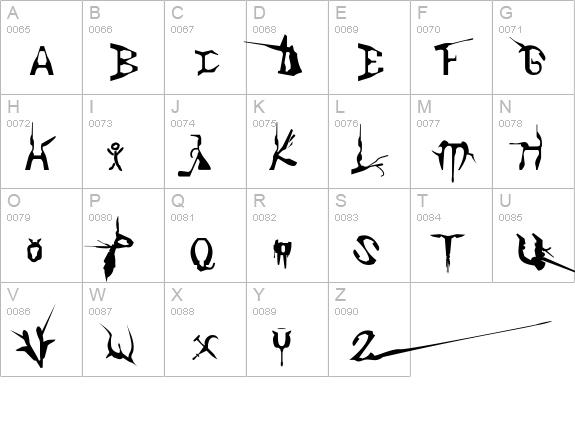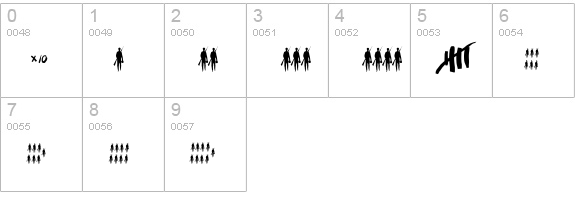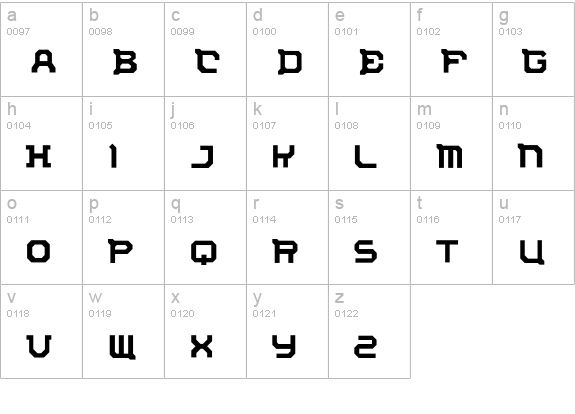
WarOrgans Font Details
WarOrgans is a captivating font that exudes strength, power, and a touch of mystery. With its bold and commanding letterforms, this font is perfect for projects that require an assertive and commanding presence. Each character is meticulously crafted, showcasing intricate details that add to its overall appeal. Designed with versatility in mind, WarOrgans can be used for a wide range of projects, from logos and branding materials to posters and headlines. Its strong and impactful nature makes it ideal for conveying important messages and leaving a lasting impression. But what truly sets WarOrgans apart is its uniqueness and artistic flair. The font seamlessly combines sharp edges with subtle curves, creating a harmonious balance that draws the eye in. Its distinct style adds a sense of elegance and sophistication to any design. One of the best things about WarOrgans is that it is available for free download at FontsMarket.com. This means that anyone can access and utilize its powerful aesthetics without any cost. Whether you're a professional designer or simply a creative enthusiast, WarOrgans allows you to unleash your creativity without breaking the bank. So, if you're looking for a font that captures attention, conveys authority, and adds a touch of mystique to your projects, look no further than WarOrgans. Download it for free at FontsMarket.com and experience the transformative power of this one-of-a-kind font.